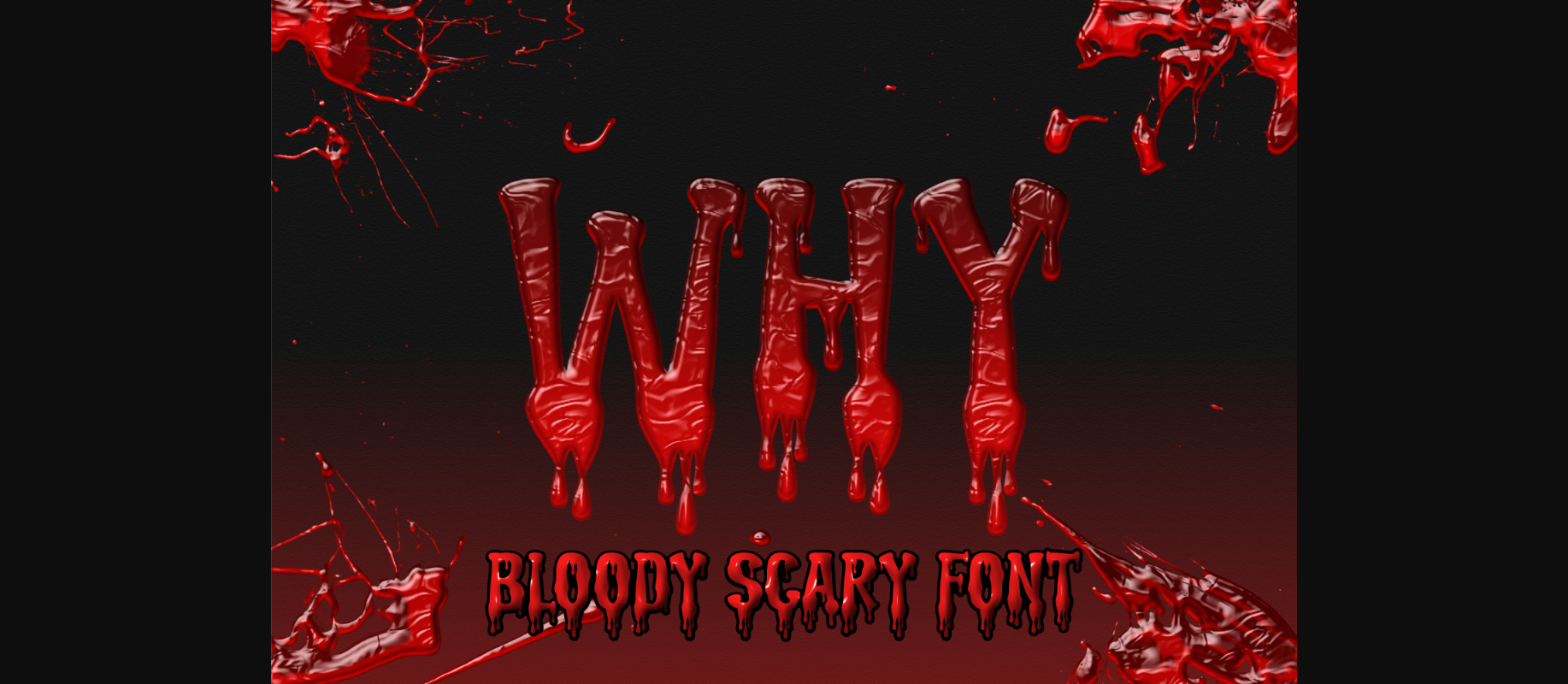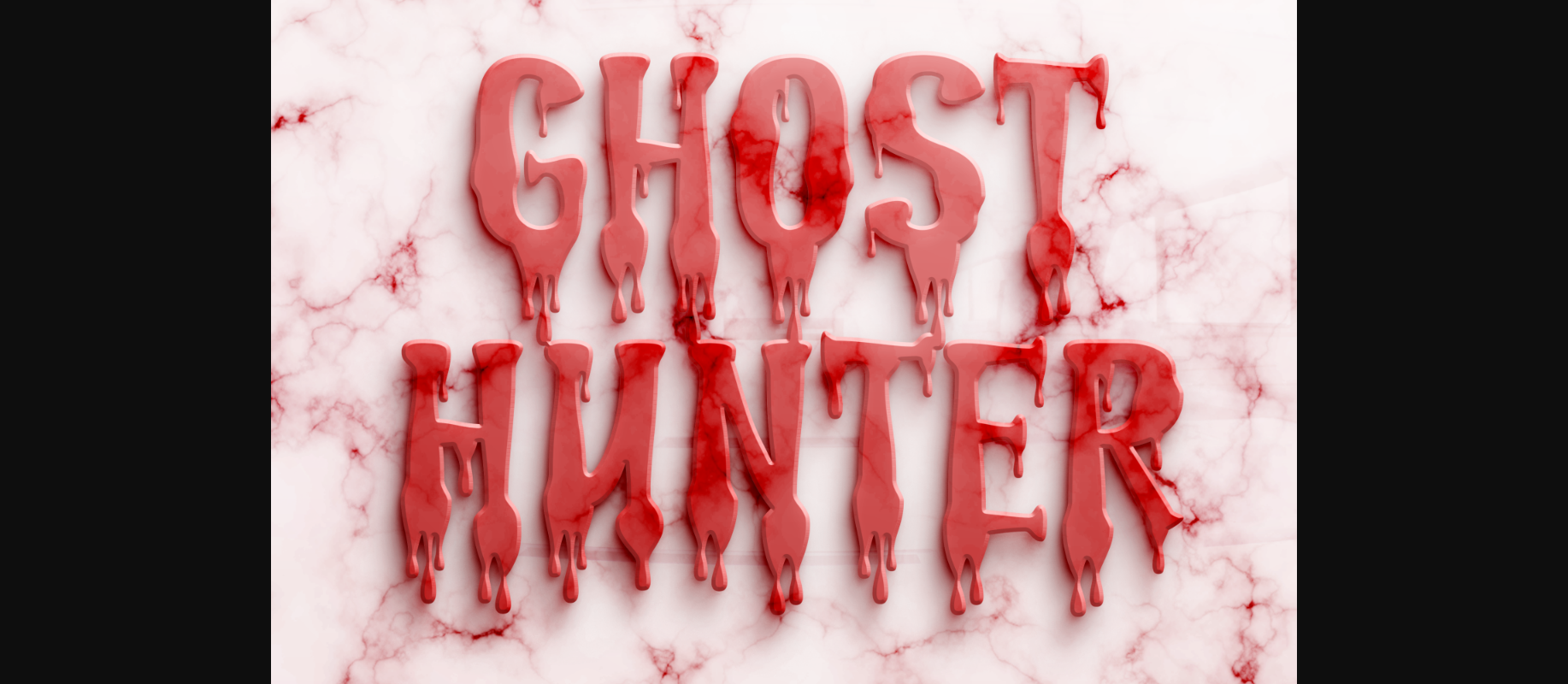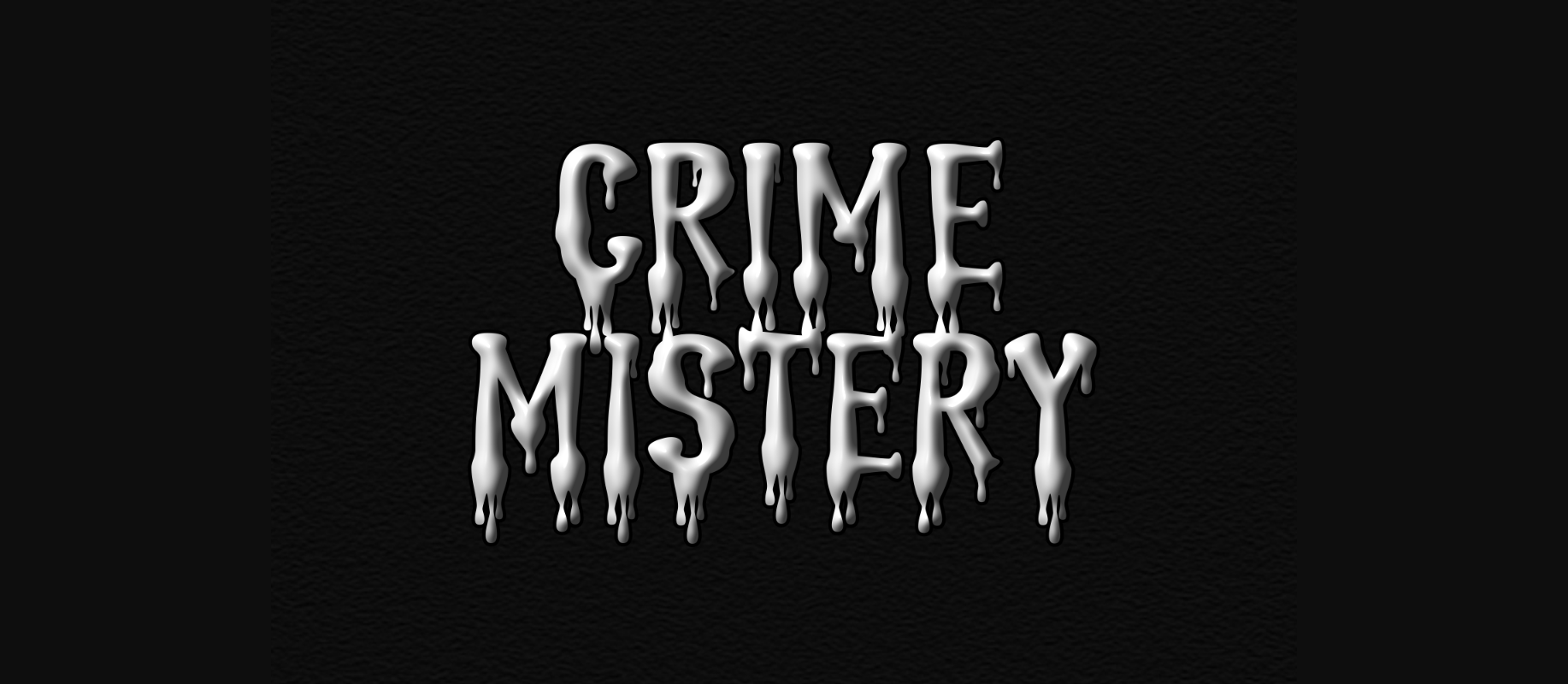
About Why Font
The Why font is a scary decorative font, that bring that terrific gory touch to your creative projects. Use this font for your Halloween crafts, and when you want to add a mysterious touch to your projects.